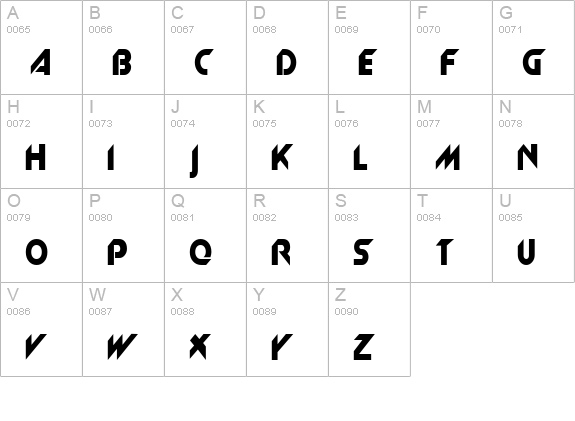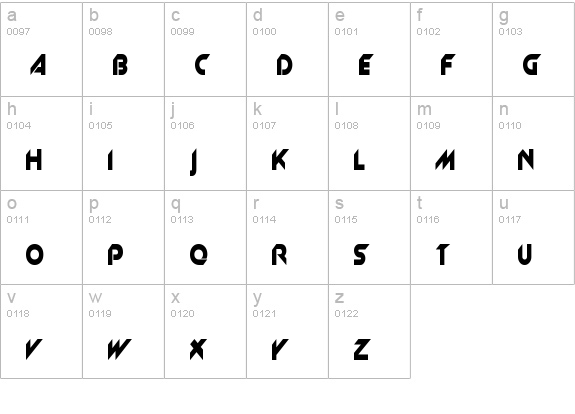
MachineCondensed Normal Font Details
MachineCondensed Normal is the standard, neutral variant in the MachineCondensed typeface family \xE2\x80\x94 well suited to general body text, paragraphs, and standard typographic work.
MachineCondensed Normal font is a versatile and modern typeface that is perfect for a wide range of design projects. With its clean and streamlined lines, this font exudes a sense of professionalism and sophistication. Designed with legibility in mind, MachineCondensed Normal font is easy on the eyes, making it ideal for both print and digital applications. Whether you are designing a logo, creating a brochure, or working on a website, this font will add a touch of elegance and style to your project. One of the best features of MachineCondensed Normal font is that it is freely available to download at FontsMarket.com. This means that you can enjoy the benefits of this high-quality font without having to spend a dime. So why wait? Enhance your designs with the timeless beauty of MachineCondensed Normal font, and make a lasting impression on your audience. Download it for free today at FontsMarket.com and take your design projects to the next level.